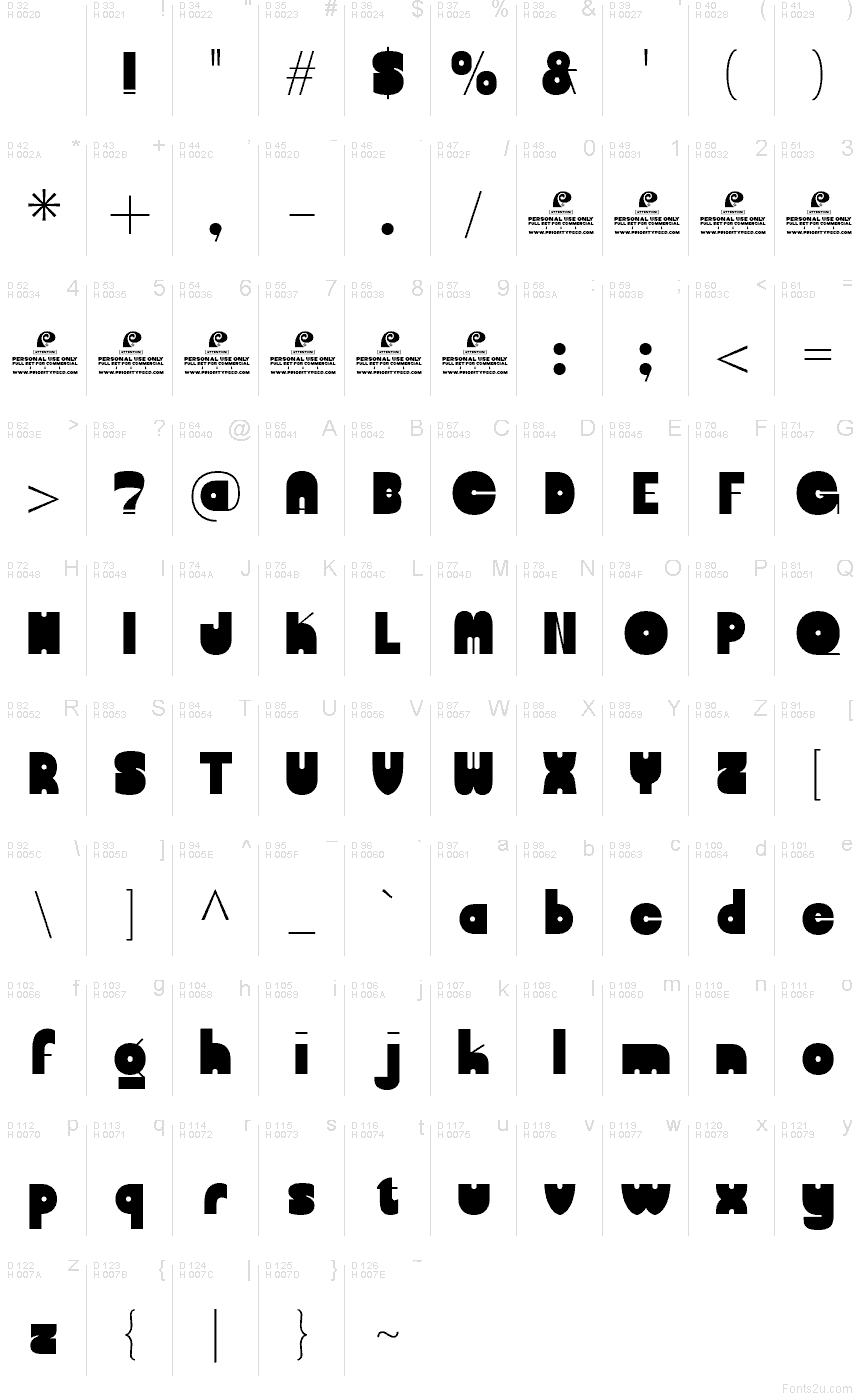
Drink Cava font by Prioritype Co is a free groovy display typeface with a bold, bubbly twist. Thick, rounded shapes are punched through with crisp circular holes and playful cutouts, giving every word the look of clinking glasses and rising champagne bubbles. The rhythm feels chunky yet surprisingly smooth, so headlines land with a satisfying visual thump while still reading clean at a glance.
Using Drink Cava, you can instantly dial up a retro-party mood for event posters, club flyers, drink menus, album covers, packaging, and bold social graphics. This free font shines when set large, letting those circular cutouts and solid black forms really breathe. Pair it with a simple, modern sans in smaller text to keep things legible while Drink Cava handles the fun, attention-grabbing moments.